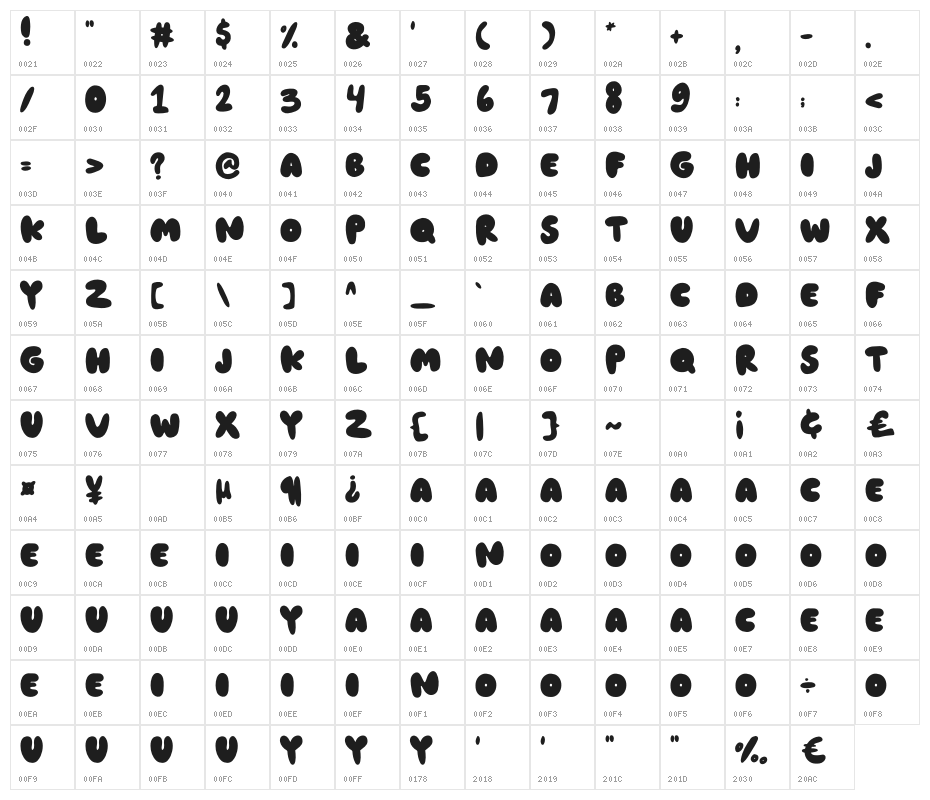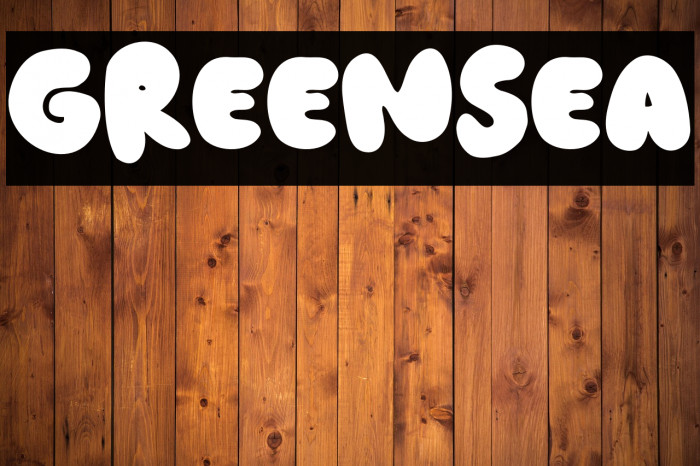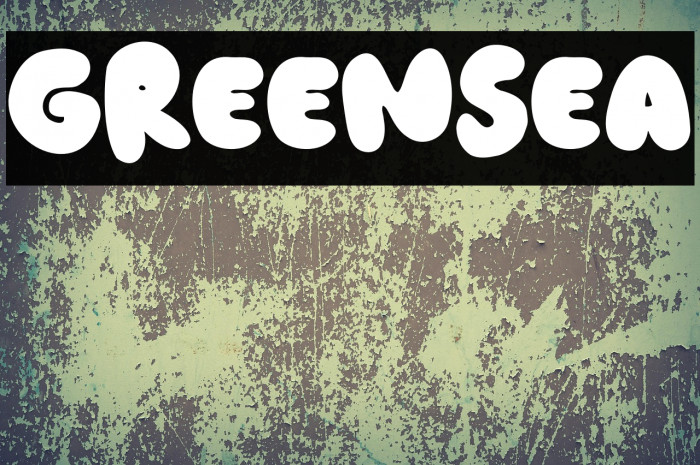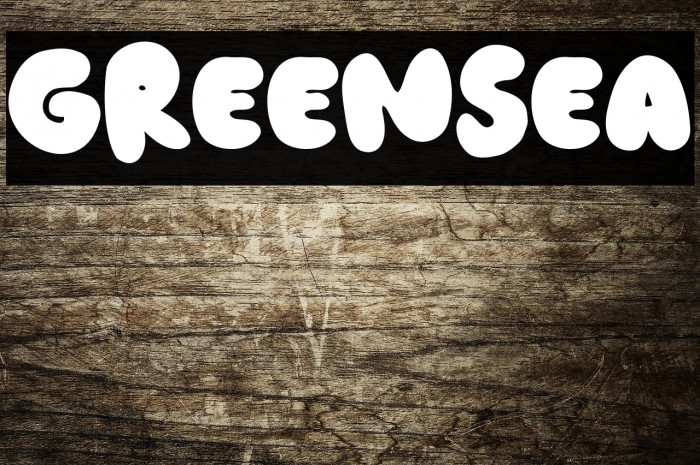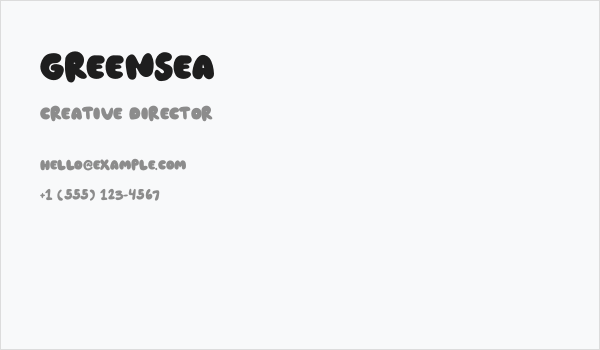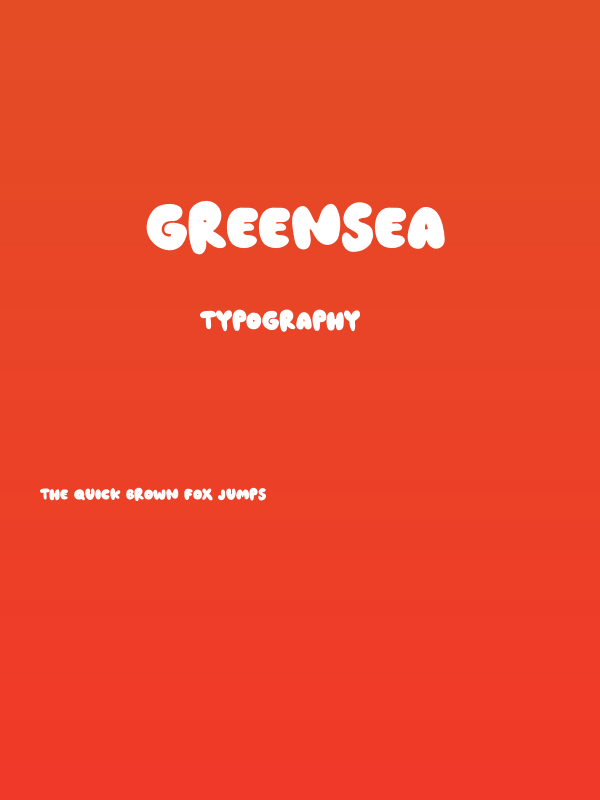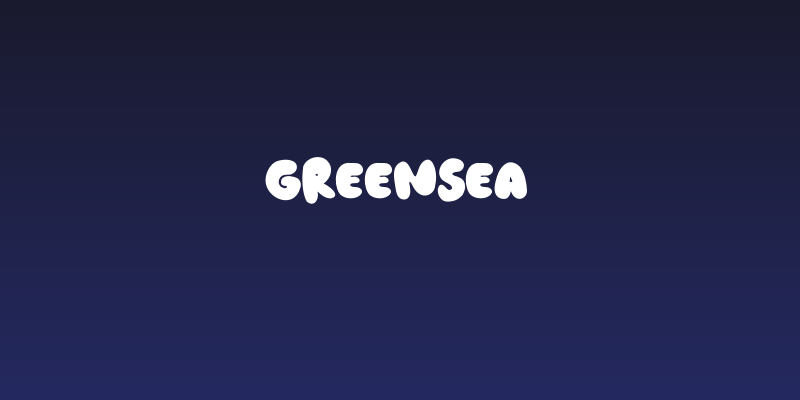
GREENSEA Font
GREENSEA Description
This playful and bold font features thick, rounded characters that convey a sense of fun and approachability. The letters are uniformly wide with a consistent stroke weight, creating a cohesive and visually impactful appearance. The font's bubbly nature makes it ideal for projects that require a friendly and informal tone. Its unique style is characterized by smooth curves and a lack of sharp edges, enhancing its whimsical and inviting feel. The numbers and special characters maintain the same playful aesthetic, ensuring consistency across all text elements.
| Proposed Projects | Ideal for children's books, playful branding, party invitations, and casual social media graphics. |